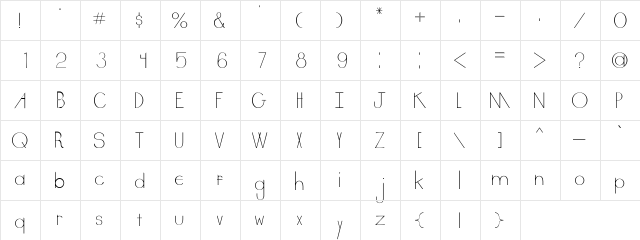
Keenton Regular
Design Context for Keenton Typeface
Keenton offers clean, dependable letterforms without strong stylistic allegiance, making it a practical choice for designers who need flexibility.
Pro Tip: Use Keenton in both headline and body roles to test its range before committing to a single application.